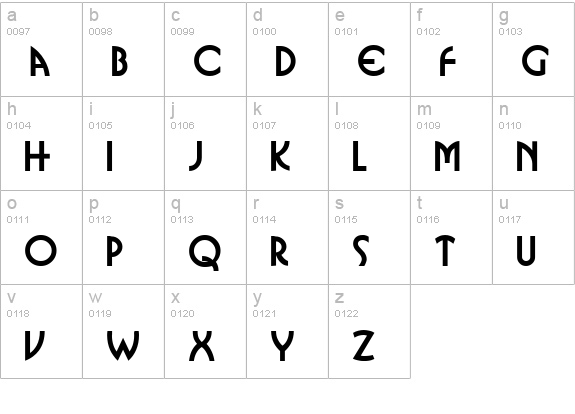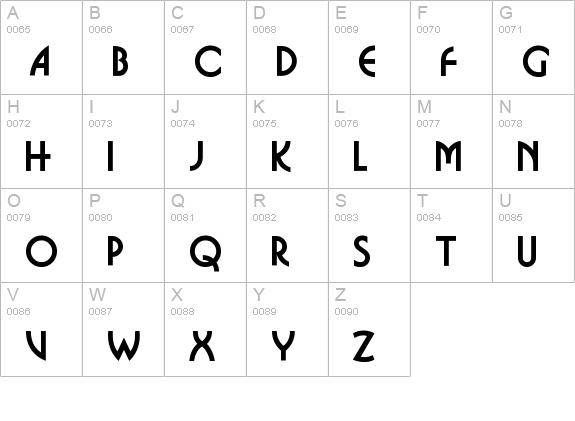
Busso-Extended Font Details
Busso-Extended is a distinctive, extended-width variant in the Busso typeface family \xE2\x80\x94 well suited to design and typography projects.
Busso-Extended is a modern and elegant typeface that exudes sophistication and style. With its sleek lines and elongated letterforms, Busso-Extended is perfect for creating eye-catching designs that demand attention. This versatile font is ideal for branding, editorial design, and packaging projects. What sets Busso-Extended apart is not just its aesthetic appeal, but also the fact that it is available for free download at FontsMarket.com. That's right, you can access this premium font at no cost, making it a valuable addition to any designer's toolkit. Whether you're working on a professional project or simply looking to add some flair to your personal creations, Busso-Extended is the perfect choice. Download it today and elevate your designs to the next level!